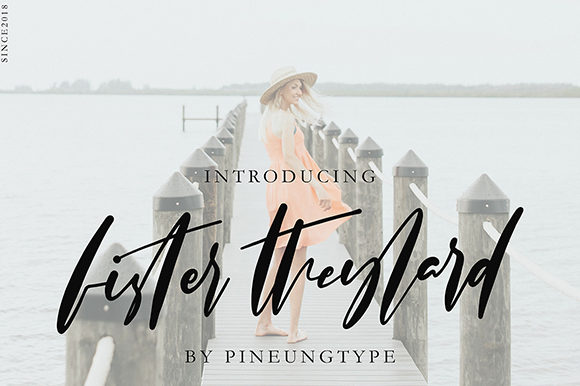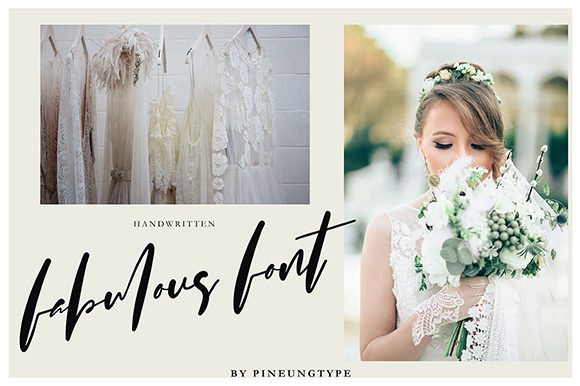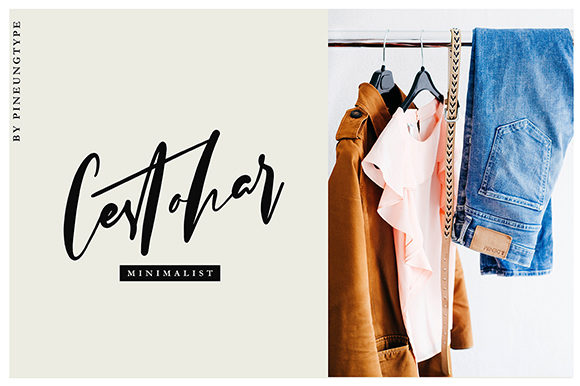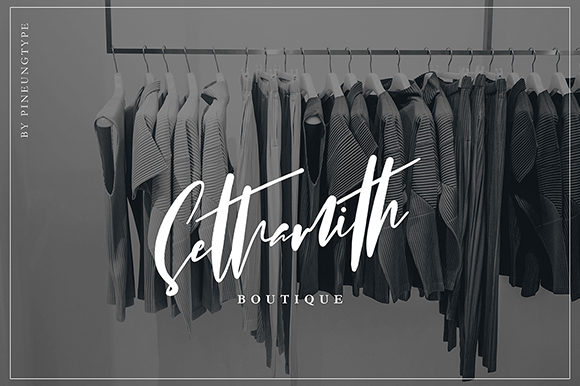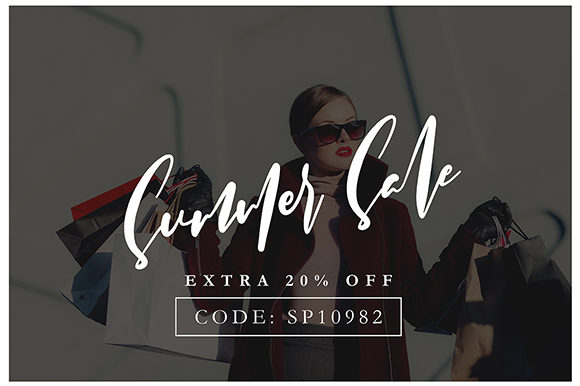
HomeScript FontsFister Theylard Font Script Fonts Fister Theylard Font FacebookXPinterestWhatsApp Fister Theylard Font Poster 2 Fister Theylard Font Poster 3 Fister Theylard Font Poster 4 Fister Theylard Font Poster 5 About Fister Theylard Font Fister Theylard is a stunning script font with a bold twist. It will turn any design project into a stand out! DOWNLOAD NOW People also explored Autis Font Halfmoon Font Rameda Font Kazasttan Font Bandung Font Cloudy Sky Font Sweet Child Font Prince Flamingo Font Hellobaby Font 326 0 TagsFister Theylard Font Previous articleShintania FontNext articleJonatan Gilberta Font LEAVE A REPLY Cancel reply Comment: Please enter your comment! Name:* Please enter your name here Email:* You have entered an incorrect email address! Please enter your email address here Website: Save my name, email, and website in this browser for the next time I comment. Personal Use Free Unispace Personal Use Free Read more about this font Wordan Personal Use Free Read more about this font Hair Thinned Personal Use Free Read more about this font Special Day Personal Use Free Read more about this font BLOG Transform Your Website: Elevate Your Typography with 7 Best Web Font Generators Are you ready to transform your website's typography from ordinary to extraordinary? Great! Today, we're diving into the world of web font generators, which... How to Install and Use Fonts on Windows, macOS, and Web Projects Where to Buy American Fonts Online in 2024 Using Fonts in Digital Marketing: Tips to Strengthen Your Brand Identity